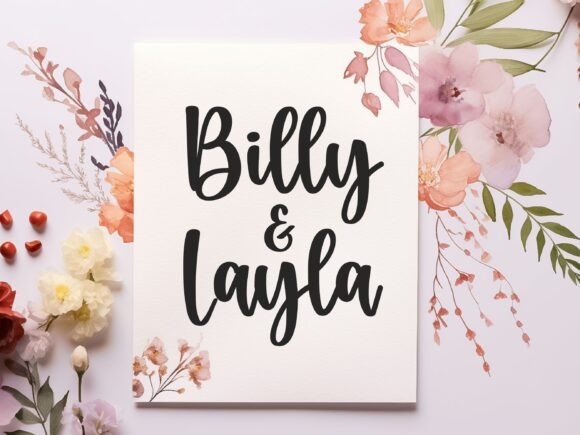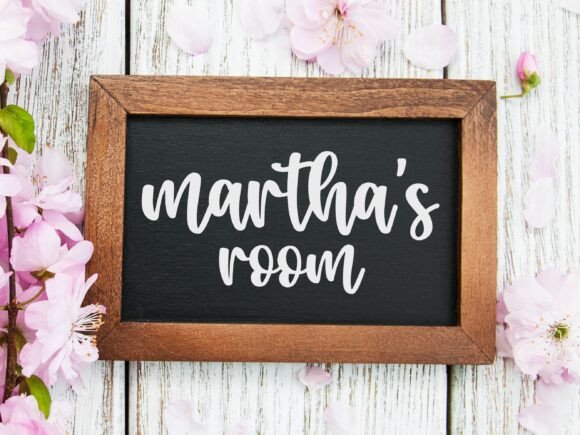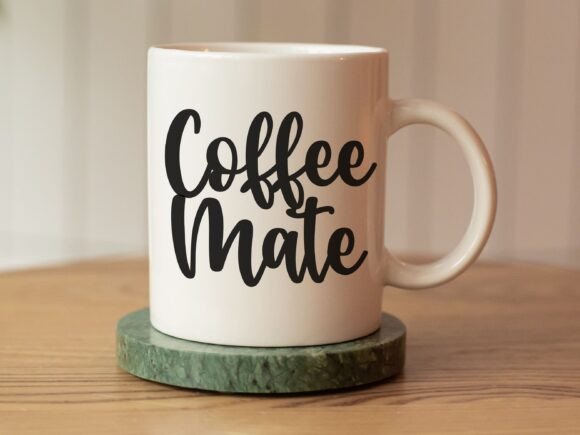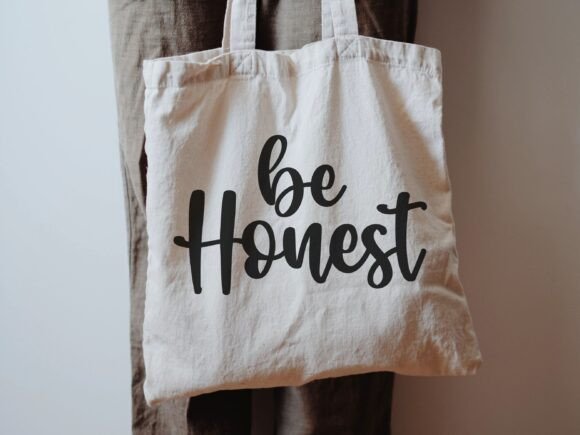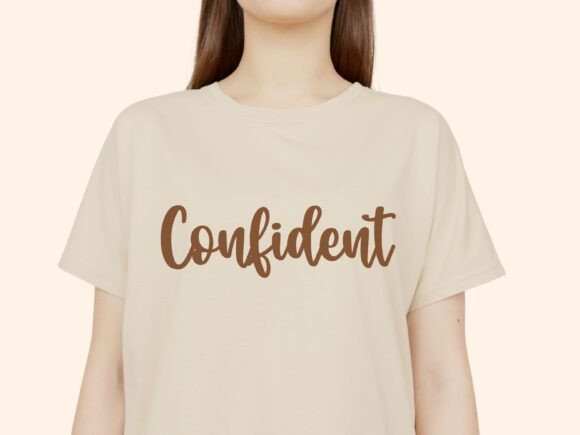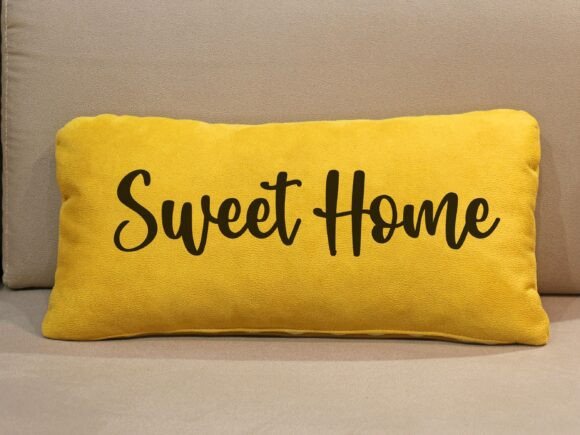
Experience the Timeless Charm of Handletter Font
In the world of typography, few fonts capture the essence of handmade craftsmanship as beautifully as Handletter. This exquisite font is a tribute to the traditional art of handwritten scripts, infusing every letter with a sense of individuality and charisma. With its organic lines and effortless flow, Handletter takes you on a journey through the timeless craft of typography, perfect for designers and crafters seeking to add a touch of rustic charm to their projects.
The Art of Handlettering
Handlettering is an art form that has been cherished for centuries. It involves creating letters by hand, using a variety of tools and techniques to produce unique and expressive typography. The result is a font that exudes warmth, personality, and a sense of human touch. Handletter Font is a digital interpretation of this traditional craft, carefully crafted to replicate the nuances and imperfections of hand-lettered scripts.
A Perfect Blend of Authenticity and Fashion
Handletter Font strikes the perfect balance between authenticity and fashion. Its soft elegance makes it an ideal choice for a wide range of applications, from rustic farmhouse signs to sophisticated invitations, merchandise, and apparel. Whether you’re a designer looking to add a touch of whimsy to your branding or a crafter seeking to create unique and eye-catching projects, Handletter Font is the perfect choice.
Rustic Charm for Farmhouse Signs and More
One of the standout features of Handletter Font is its rustic charm. Its organic lines and imperfections evoke a sense of nostalgia and simplicity, making it perfect for farmhouse signs, wooden plaques, and other rustic-themed projects. The font’s effortless flow and soft elegance also make it suitable for more refined applications, such as wedding invitations, branding, and packaging.
Adding a Touch of Whimsy to Merchandise and Apparel
Handletter Font is also a great choice for designers and crafters looking to add a touch of whimsy to their merchandise and apparel. Whether you’re creating t-shirts, tote bags, or mugs, this font is sure to add a dash of personality and charm to your designs. Its soft elegance and organic feel make it perfect for a wide range of products, from casual wear to home decor items.
Tips for Using Handletter Font
- Use it for headlines and titles: Handletter Font is perfect for grabbing attention and adding a touch of personality to your headlines and titles.
- Experiment with colors: The font’s organic feel and soft elegance make it perfect for use with a range of colors, from earthy tones to bright and bold hues.
- Pair it with other fonts: Handletter Font pairs beautifully with other fonts, including serif and sans-serif fonts. Experiment with different combinations to find the perfect look for your project.
Handletter Font is a true gem for designers and crafters seeking to add a touch of timeless charm to their projects. With its organic lines, soft elegance, and rustic charm, this font is perfect for a wide range of applications, from farmhouse signs to merchandise and apparel. Whether you’re looking to create unique and eye-catching designs or simply want to add a touch of personality to your typography, Handletter Font is the perfect choice. So why not experience the artistry of Handletter Font for yourself and discover the perfect blend of authenticity and fashion?